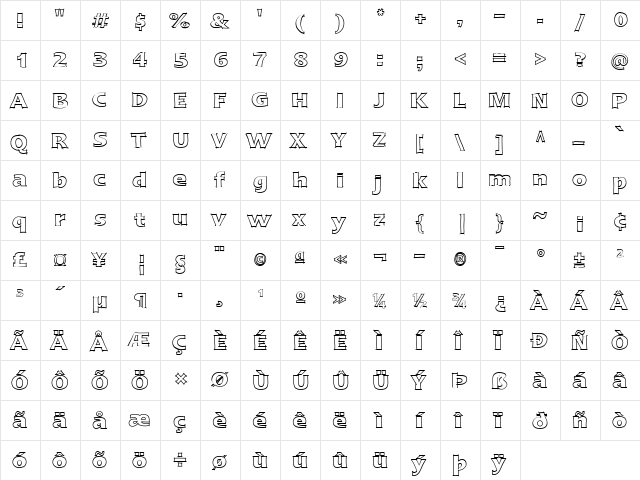
LTErgo Sketch Regular Font Preview
LTErgo Sketch Regular
Design Context for LTErgo Sketch Typeface
LTErgo Sketch takes a measured approach to typography — its balanced proportions and neutral character make it a reliable workhorse for both digital and print work.